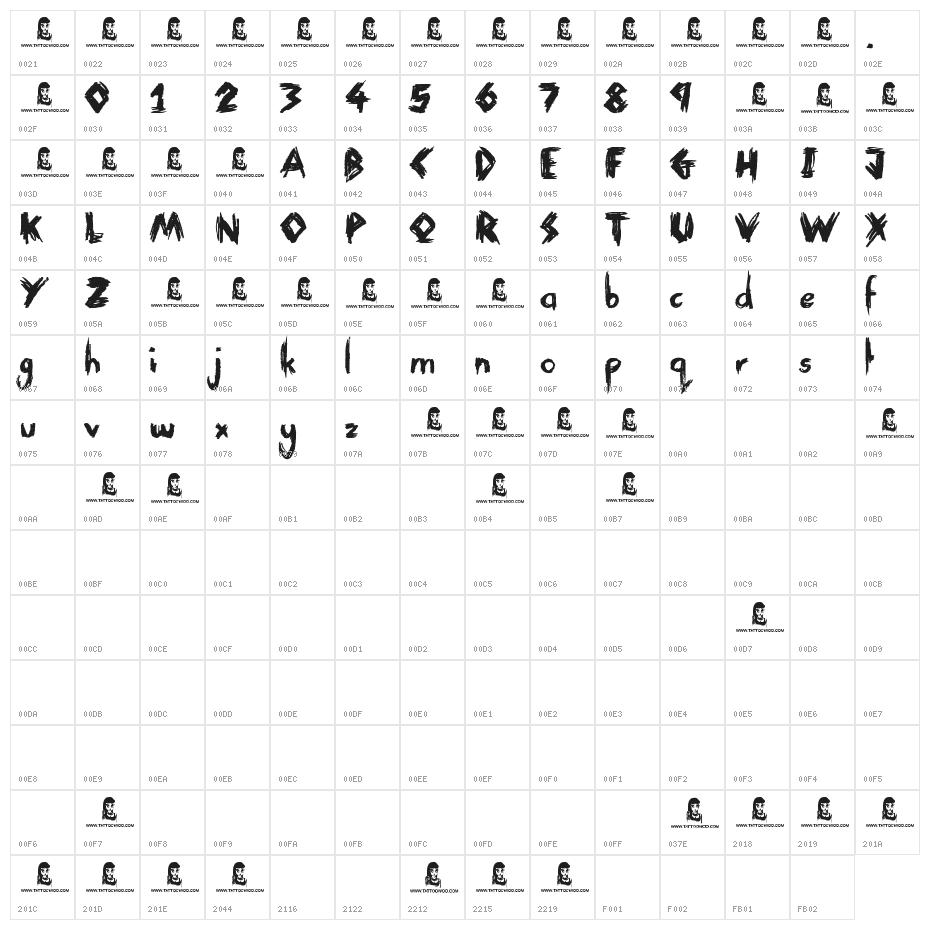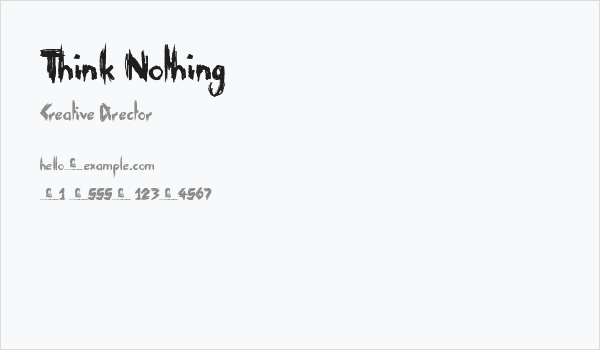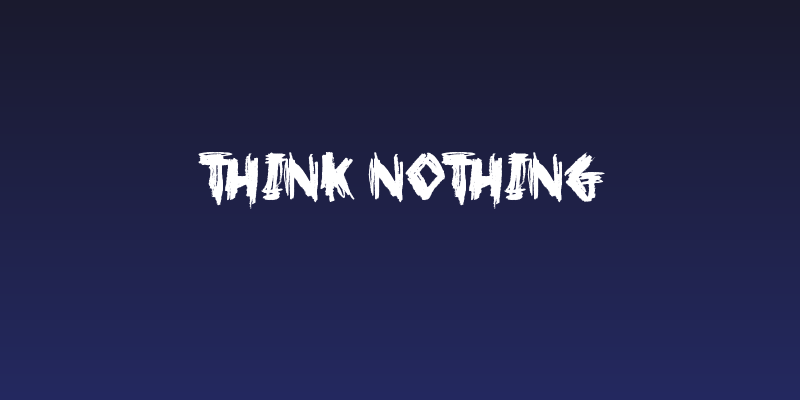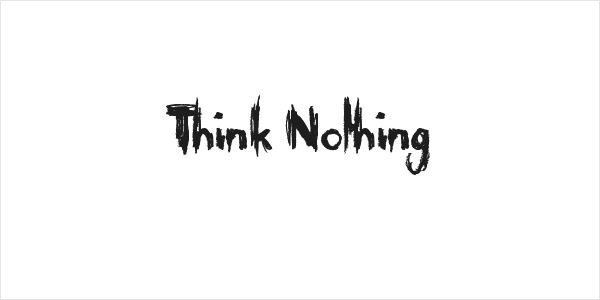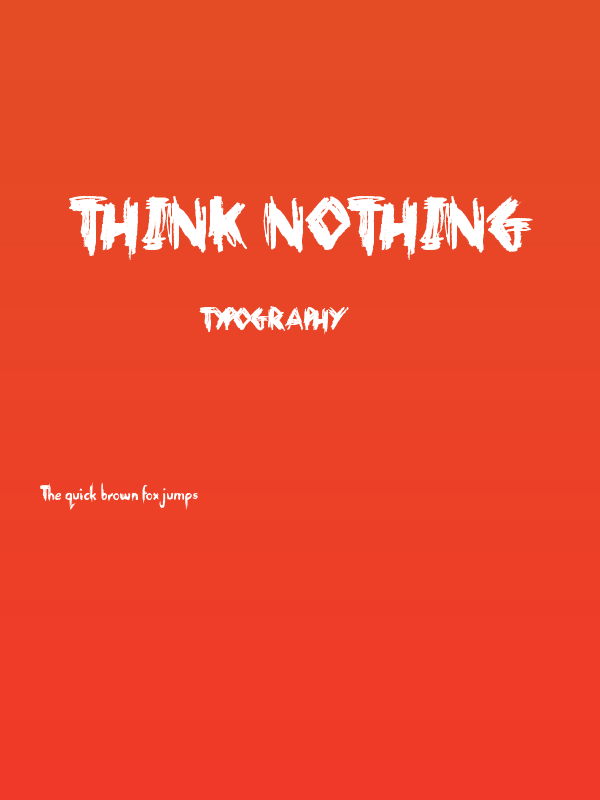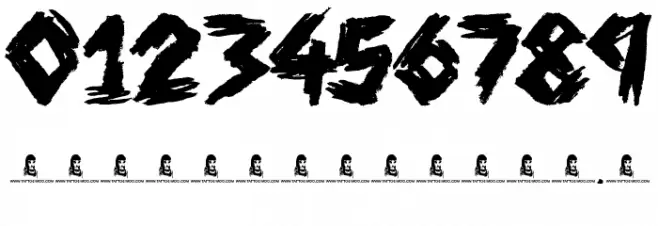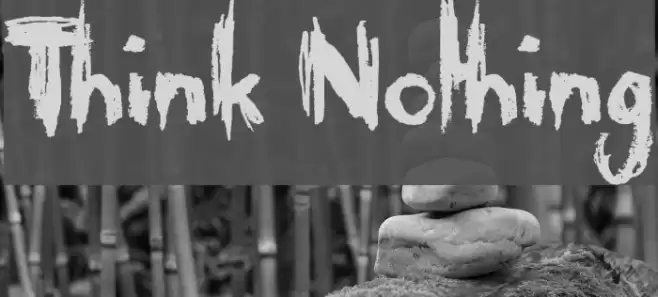
Think Nothing Font
Think Nothing Description
This font features a bold, expressive style with a brush-like texture, giving it a dynamic and energetic appearance. The strokes are irregular and rugged, creating a sense of movement and spontaneity. Each character is distinct, with varying thicknesses that add to the font's dramatic flair. The uppercase and lowercase letters maintain a consistent style, while the numbers and special characters complement the overall aesthetic. This font is ideal for projects that require a bold statement or artistic touch.
| Proposed Projects | Perfect for posters, album covers, graffiti art, and branding that requires a bold, artistic touch. |